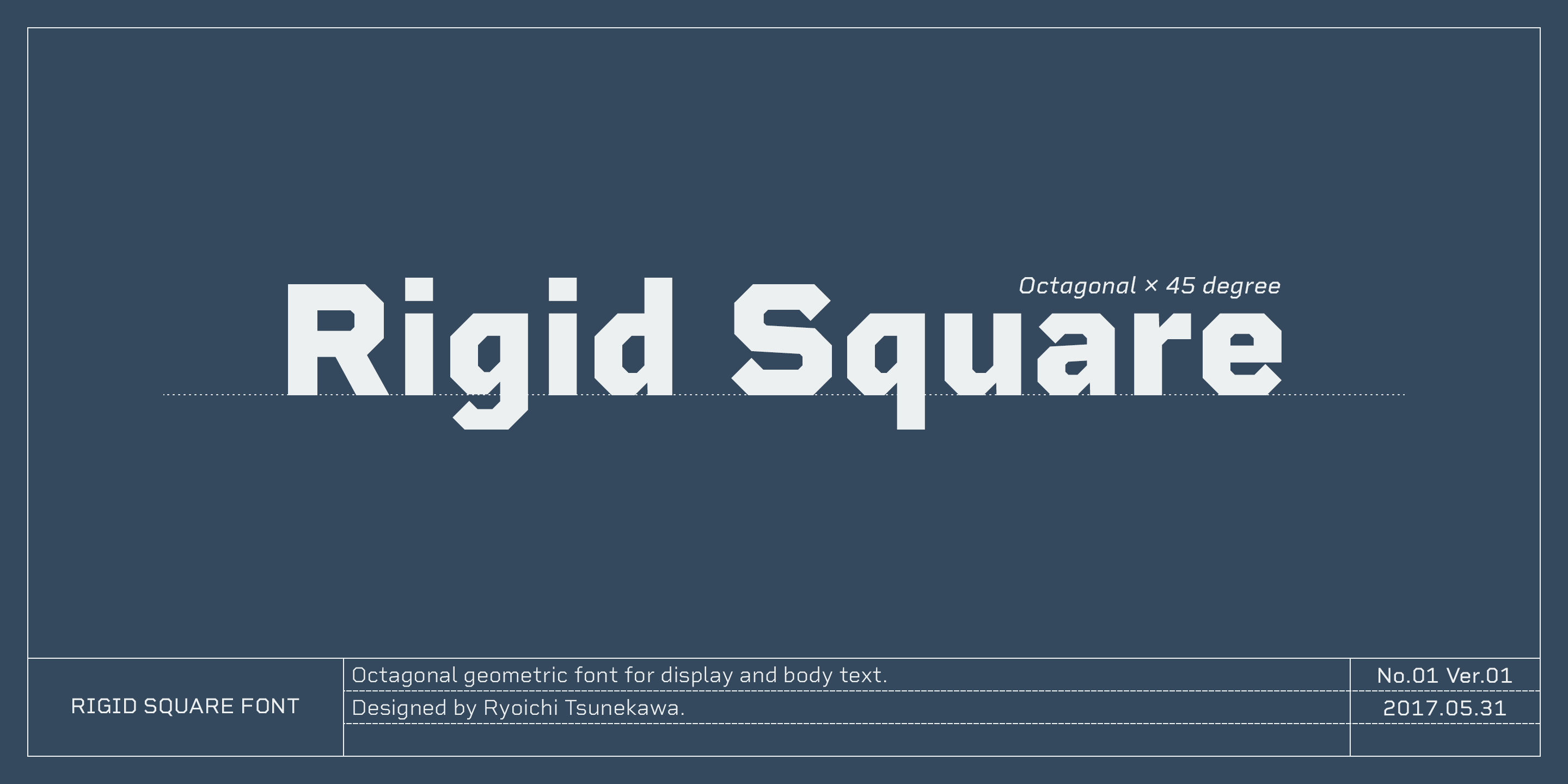
Rigid Square Font
Rigid Square Font is perfect for architectural branding projects, construction company logos, engineering firm identities, industrial design applications, geometric art installations, modernist editorial layouts, structural steel marketing, and precision-focused advertising campaigns. This commanding typeface works exceptionally well in both digital applications and print media where structural integrity and geometric precision are fundamental design requirements.
What makes Rigid Square Font so exciting is its uncompromising commitment to geometric perfection through precisely engineered letterforms that embody the strength and reliability of architectural engineering and structural design. The font features bold, angular characters with mathematical proportions, rigid construction details, and systematic spacing that communicates unwavering stability and professional competence. Its structural personality and engineering heritage make it ideal for brands seeking to establish authority in construction and design sectors while appealing to audiences who value precision, durability, and uncompromising quality standards.
The Rigid Square Font family includes multiple weight variations from regular to ultra-bold, along with condensed styles and structural alternates. Each style maintains the typeface's geometric character while offering comprehensive character sets including architectural numerals, engineering-focused punctuation marks, and special symbols designed to enhance construction communications and structural branding efforts across various industrial contexts.
This extraordinary typeface represents the perfect fusion of architectural principles and contemporary typography for construction and design industries. Whether you're developing engineering firm identities, creating architectural presentations, or designing construction marketing materials, Rigid Square Font Free Download delivers the structural reliability and versatility needed to establish credibility with professional audiences. The font's geometric aesthetic makes it particularly effective for architectural firms, construction companies, engineering consultancies, and organizations celebrating precision craftsmanship and structural excellence.
The meticulously engineered geometric construction and optimized structural performance in Rigid Square Font ensure maximum professional impact while maintaining clear communication across all architectural applications. Its commanding presence makes it ideal for structural branding, engineering communications, and precision-focused marketing where its full geometric character can create lasting impressions and establish immediate association with reliability, strength, and uncompromising architectural integrity.